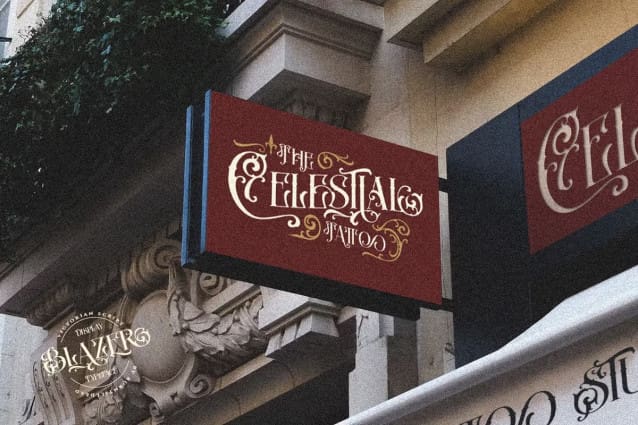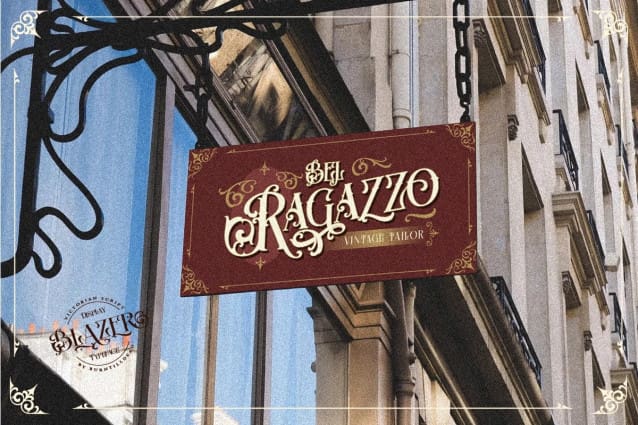
Blazer Font
Blazer Font – Make your design looks vintage and classy with the uniqueness touch from the font. Easy way to bring 1800 era to your design project! This package font including free ornament to adding classical, vintage and victorian looks in your design. So effortlessly to make your design Victorian charm.